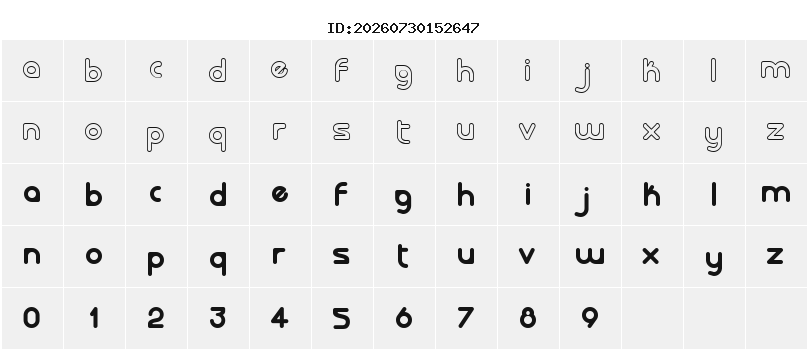
laloted Preview
• Font Name: laloted
• Full Font Name: laloted
About laloted.ttf
laloted.ttf is a modern, elegant sans-serif font designed for ultimate readability and visual harmony. Perfect for branding, headlines, web design, and print materials.